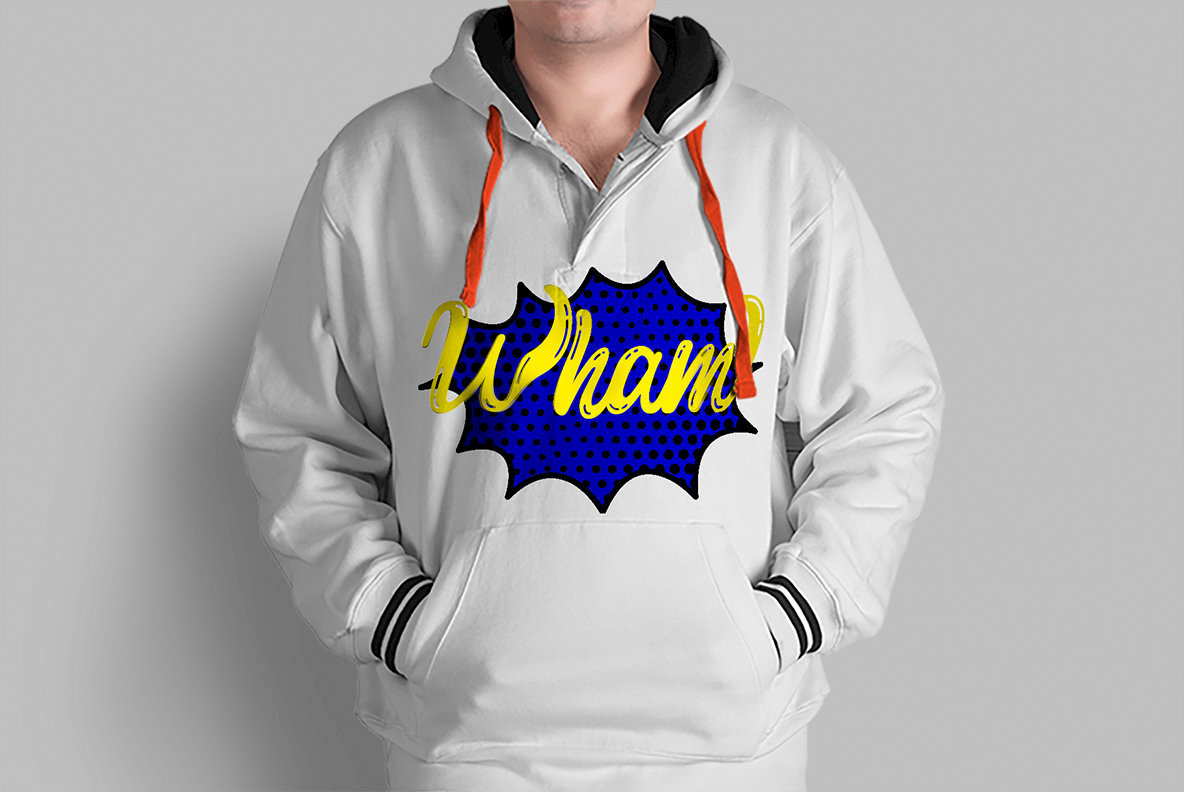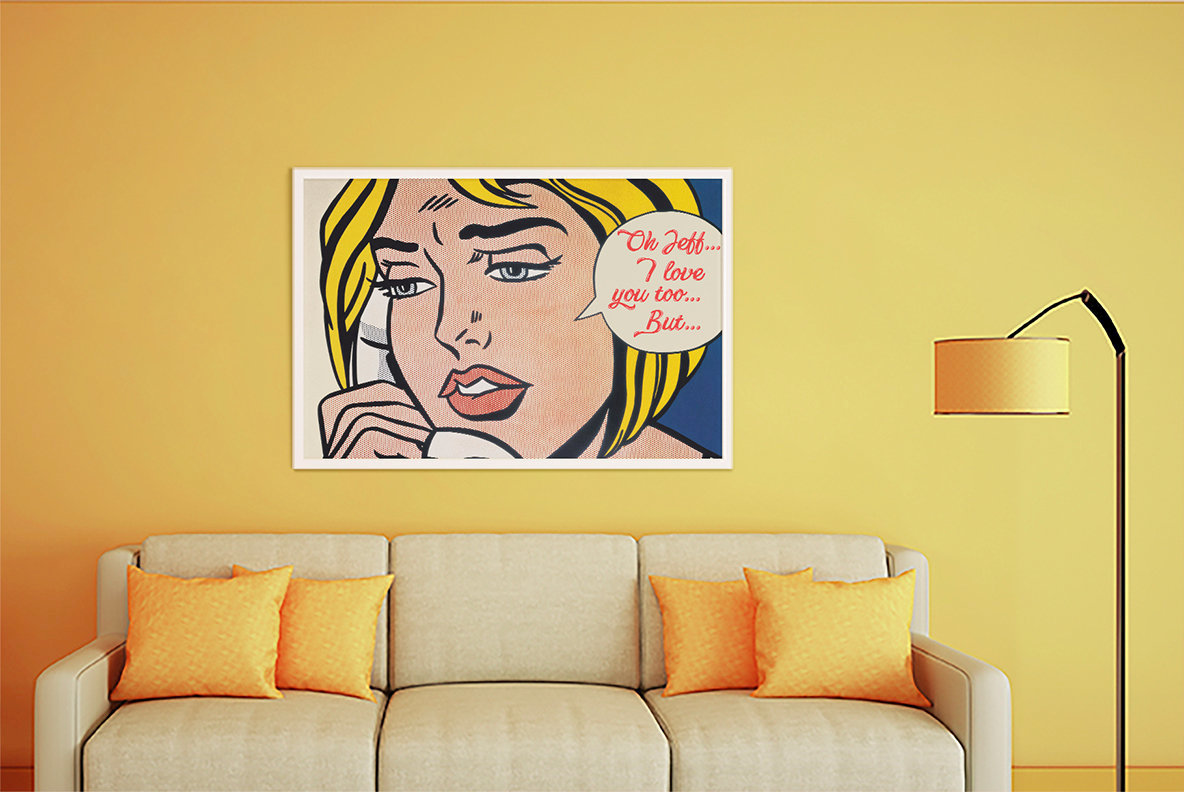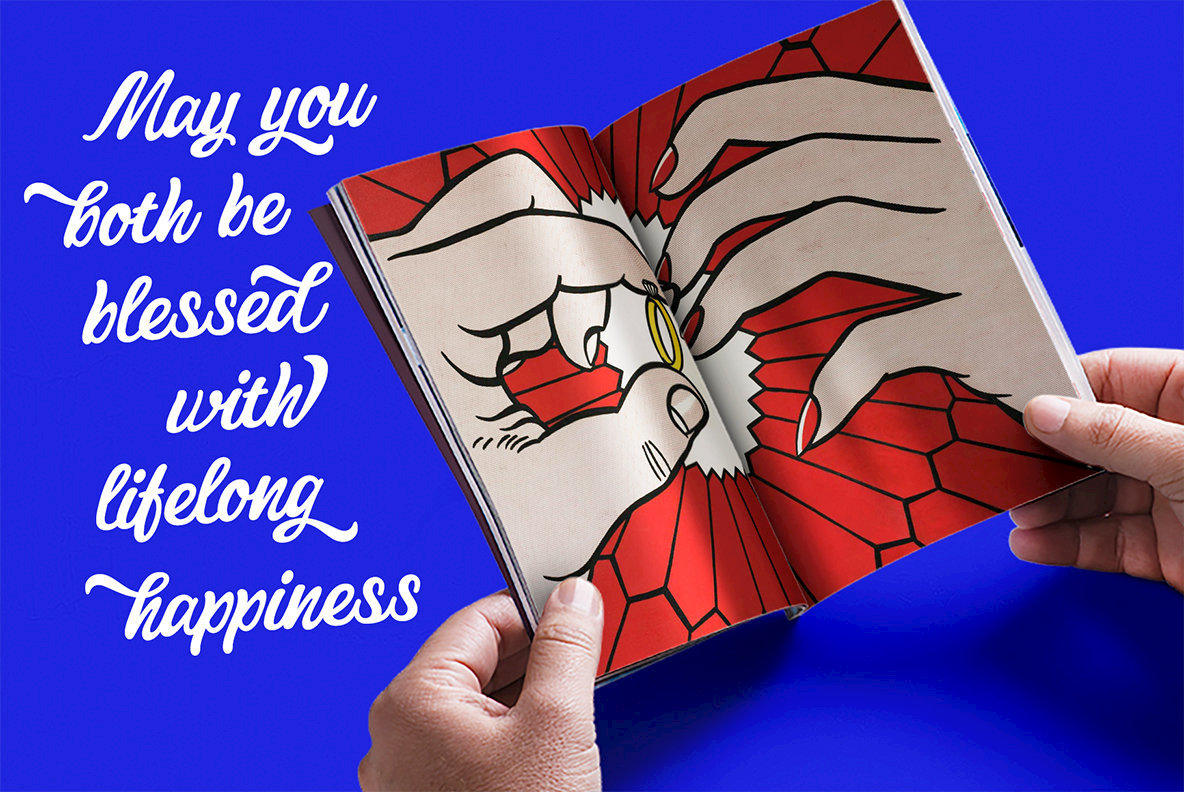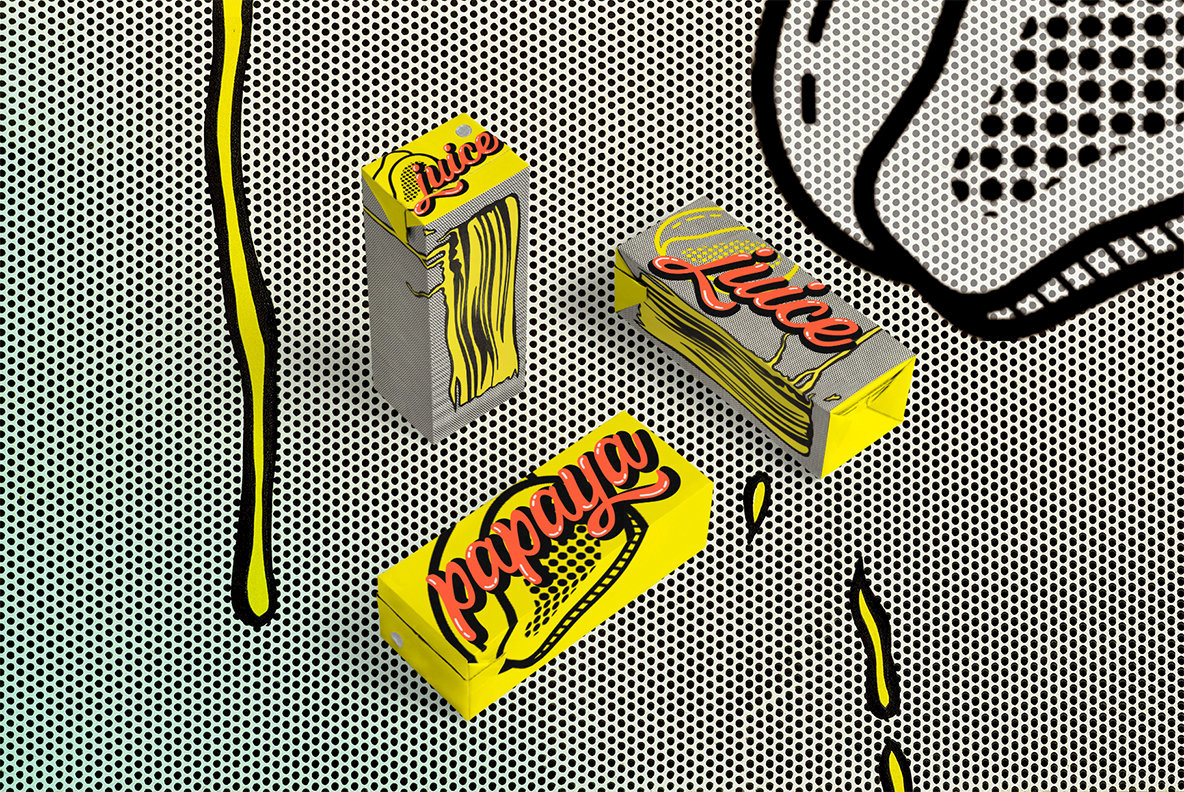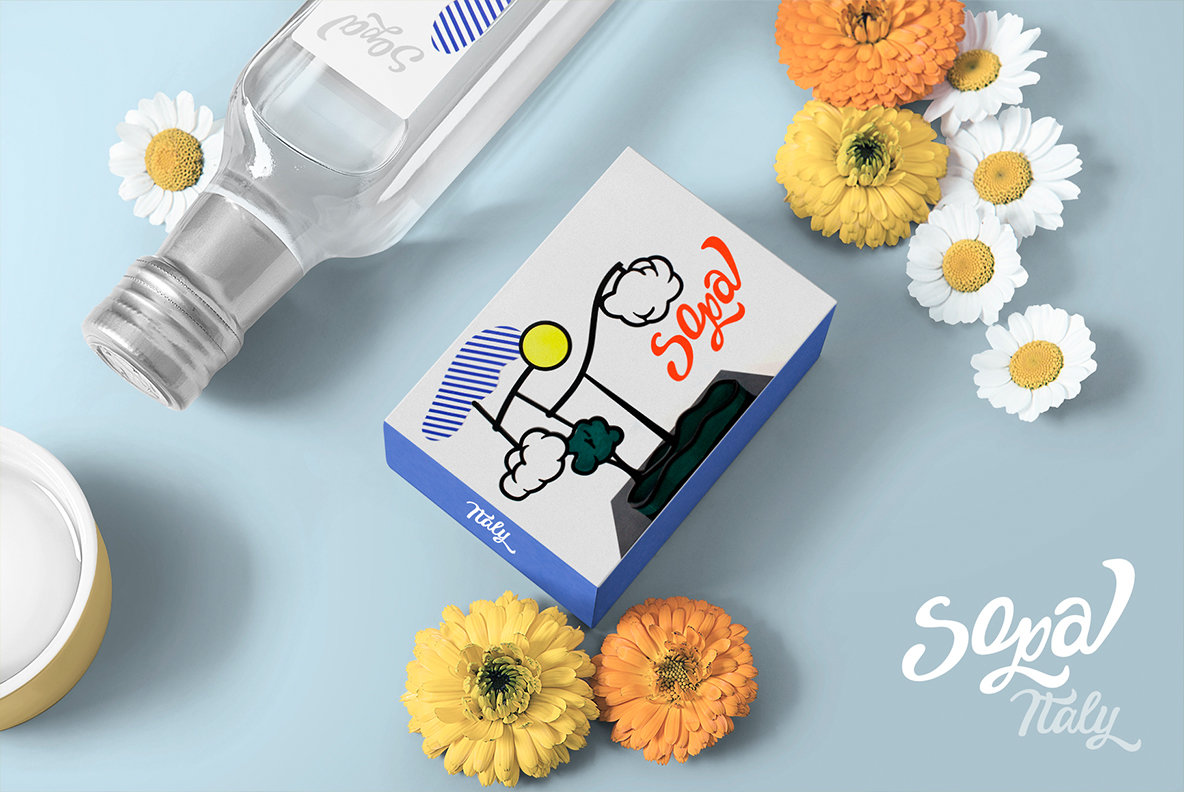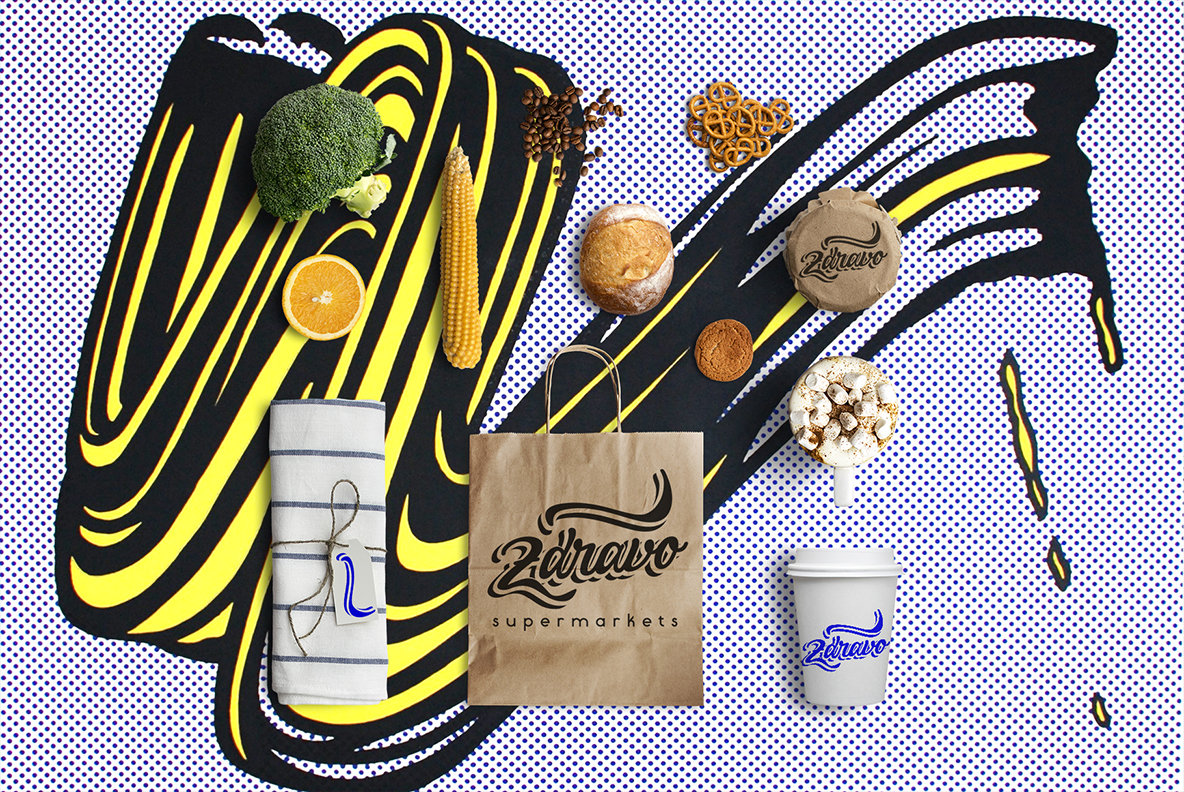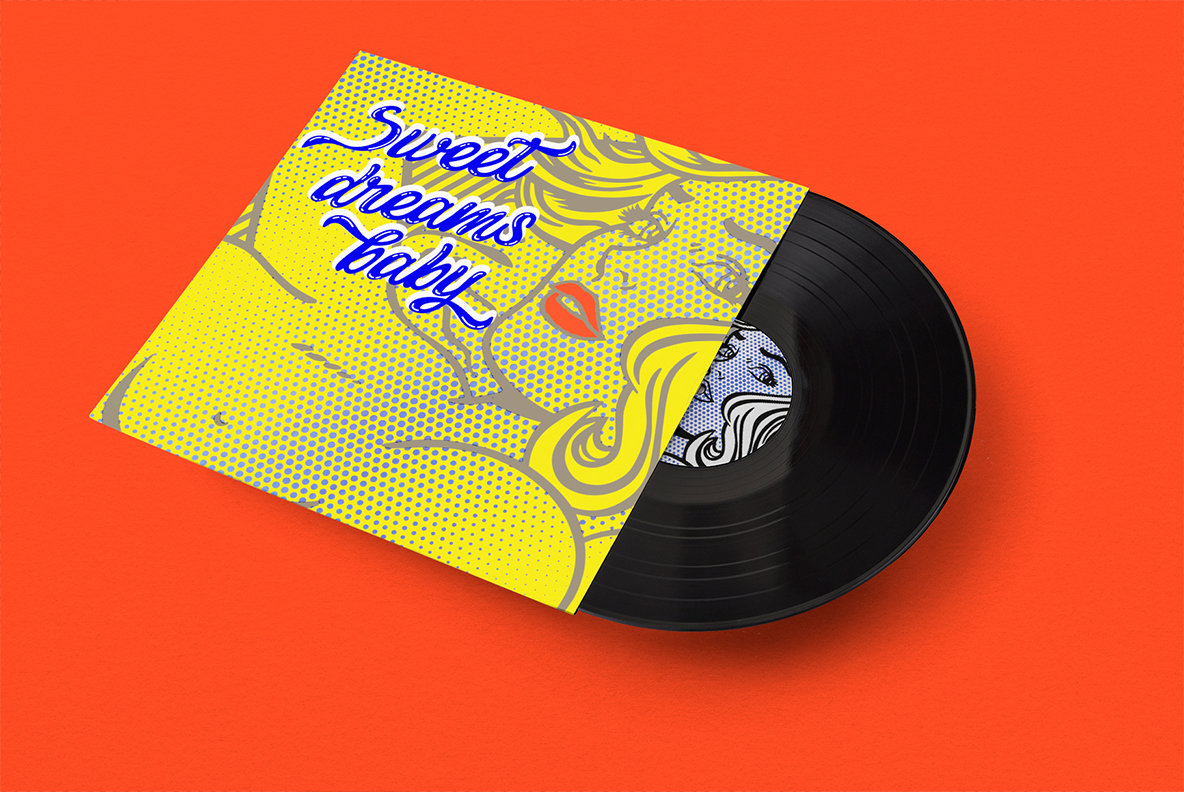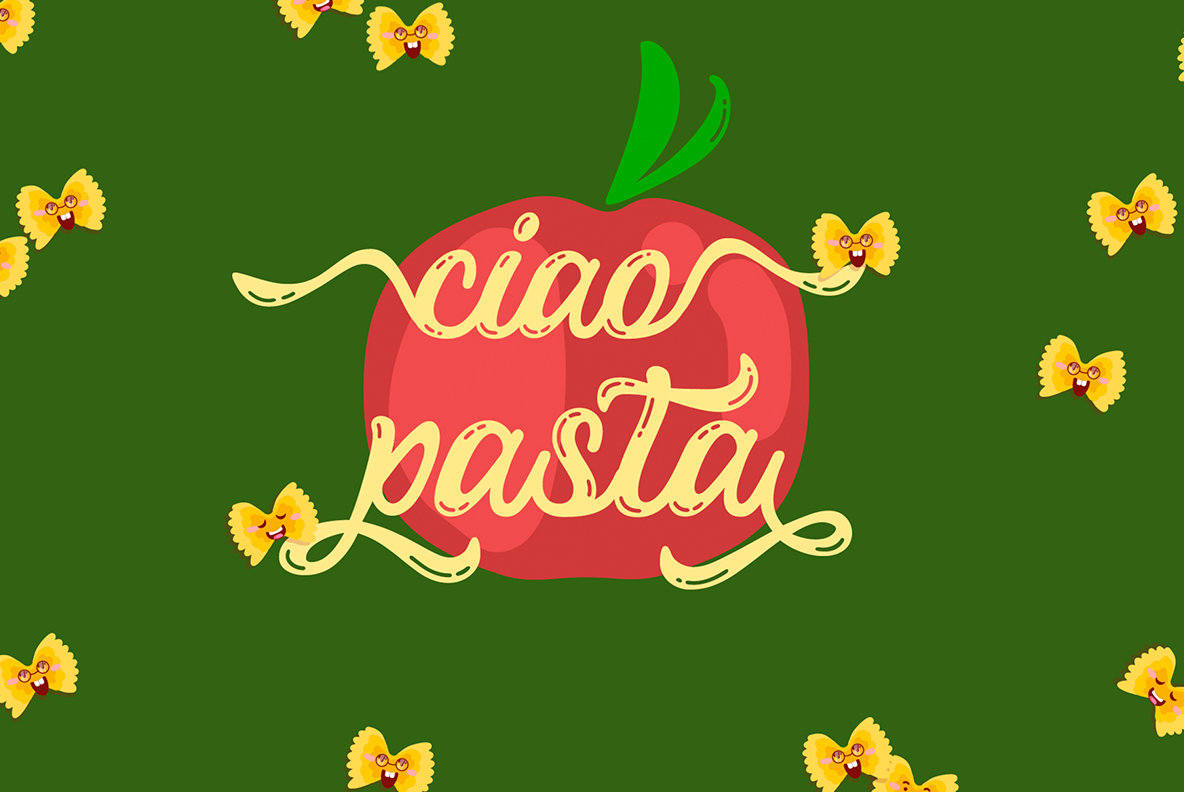
Pistoletto Font
Pistoletto Regular
Pistoletto Black
Pistoletto Background
Pistoletto Highligt
Pistoletto by Etewut Foundry pays homage to the visionary works of Roy Lichtenstein and Michelangelo Pistoletto. This unique script font merges artistic influences to deliver a bold, expressive typeface suitable for a variety of design projects. Pistoletto offers a dynamic range of styles, including Background, Black, Highlight, and Regular, allowing designers to create captivating and layered textual compositions. Each style is crafted to support European languages, ensuring versatility across multiple applications. The typeface includes uppercase alternates in basic Latin, two lowercase alternates, along with numerous ligatures and swashes—making it a sophisticated choice for those seeking something that echoes the vibrancy of pop art and the elegance of the Renaissance. Please note: The ZIP package includes only the font files, excluding any graphical illustrations.Pistoletto Script: A Tribute to Pop and Renaissance Art